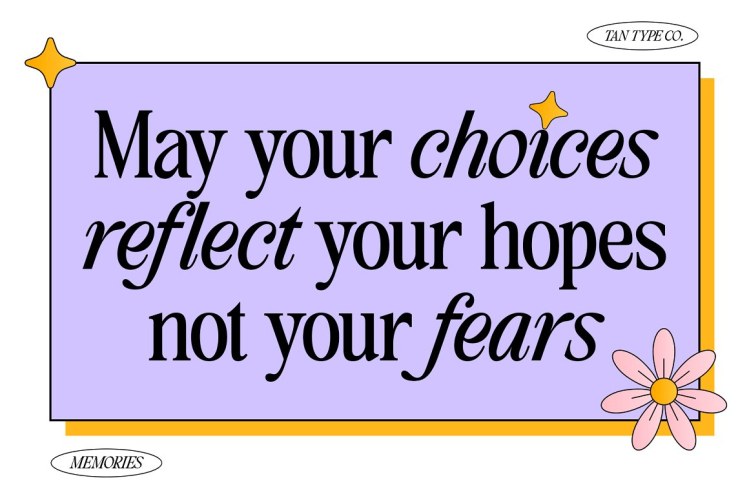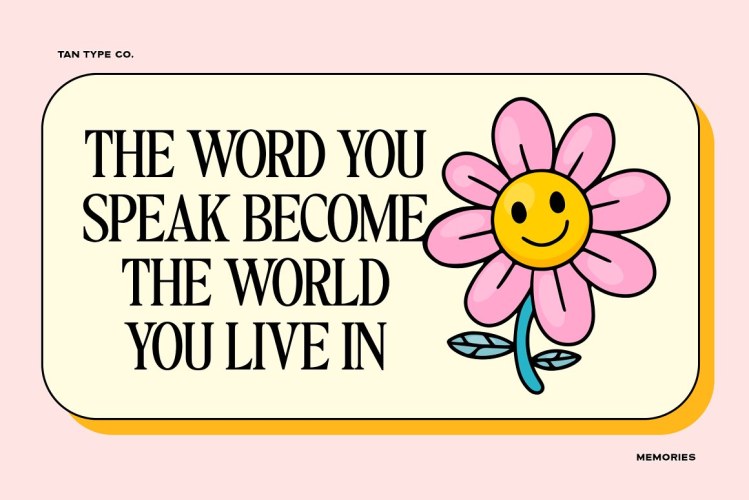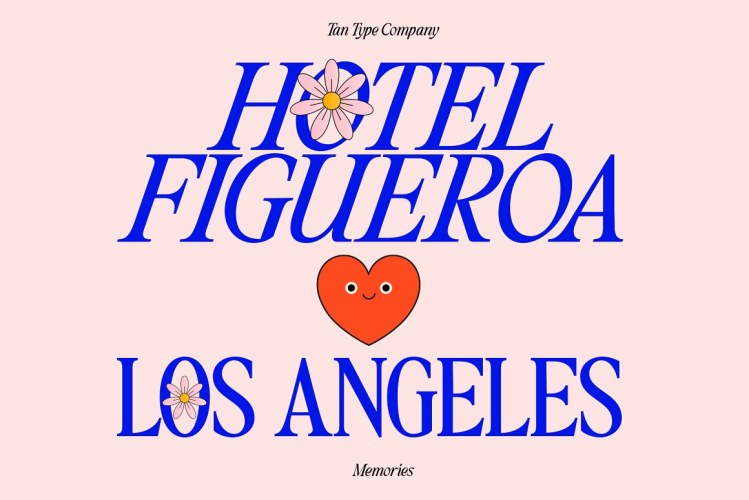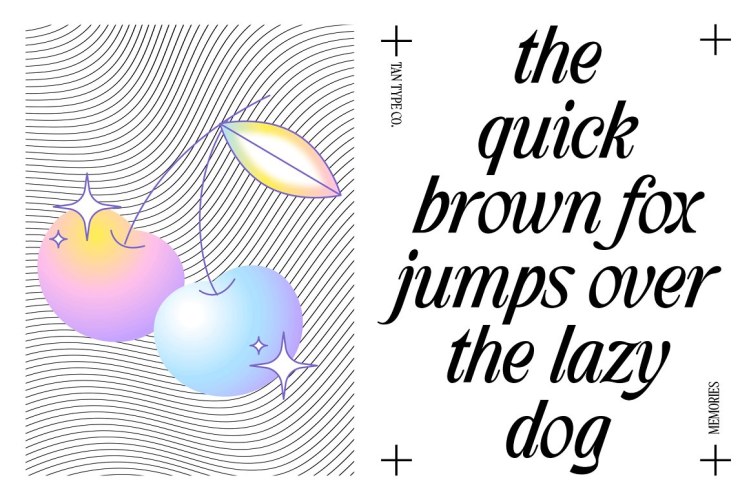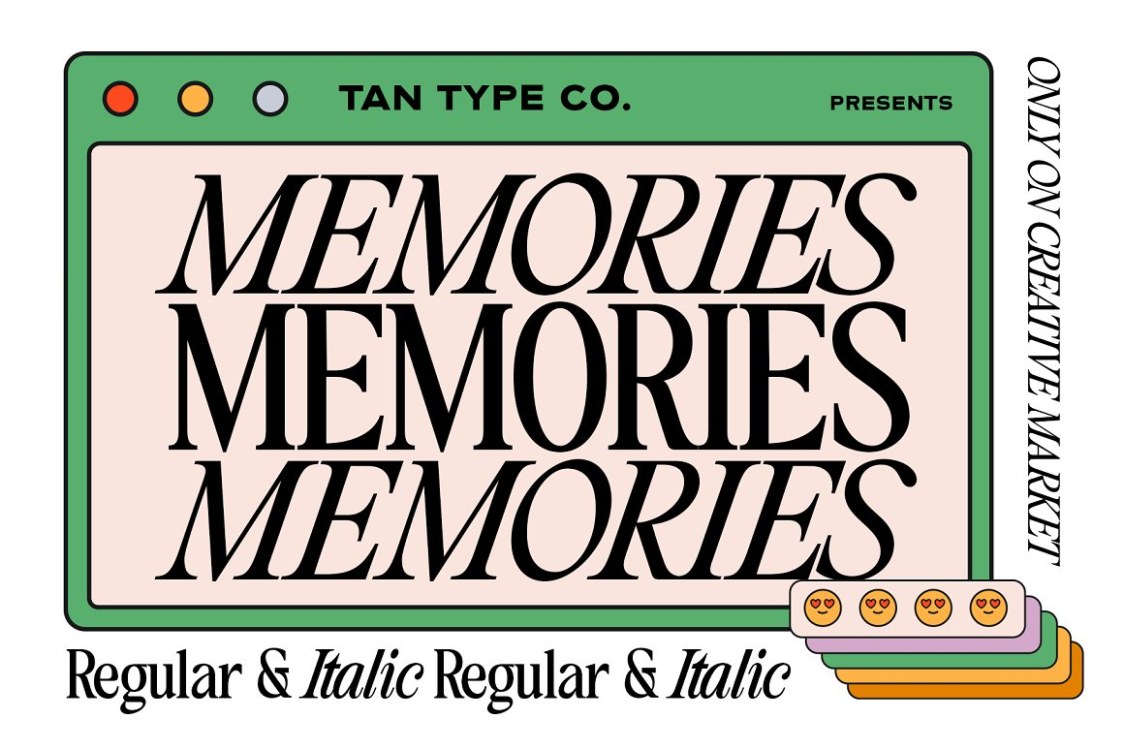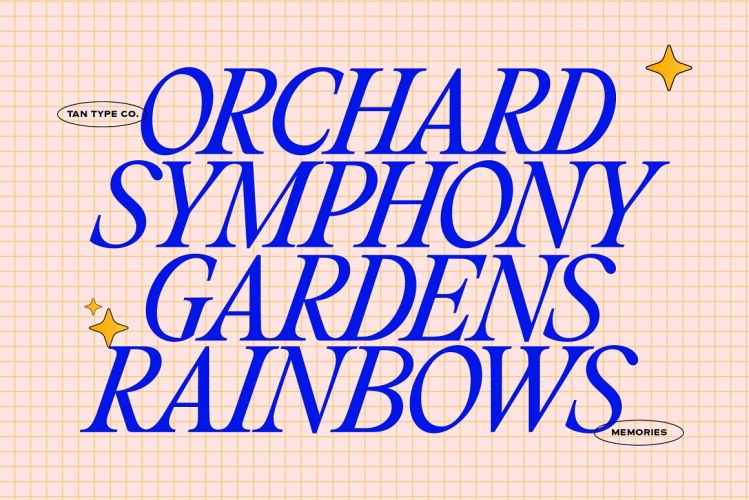
TAN MEMORIES FONT
TAN – MEMORIES brings classic serif typeface and very tight kerning with timeless elegance. Perfect to boost the effect of the display typefaces or otherwise be used alone for a subtler look, it adds to visual harmony and sophistication to any design project.
TAN MEMORIES FONT is built for size: event posters, hero headlines and billboard-style layouts.
High contrast display type like TAN MEMORIES FONT reads instantly in thumbnails and motion graphics.
TAN MEMORIES FONT is a Display Fonts typeface tagged Classic, Display, Display Fonts, Elegant. It works well for headlines, logos, posters, social media graphics and branding projects that need a distinctive display fonts look.